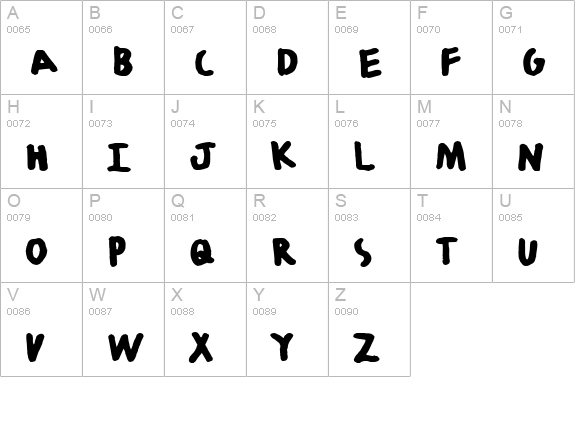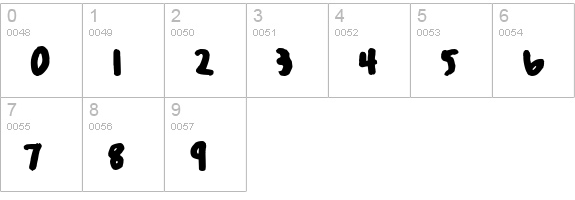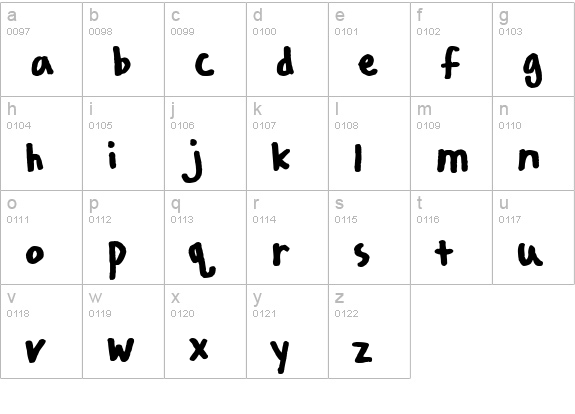
CK Kiddo Font Details
Introducing CK Kiddo font, a whimsical and playful typeface perfect for adding a touch of fun to your creative projects. This charming font features unique, hand-drawn letterforms that exude a sense of childlike innocence and imagination. CK Kiddo is versatile and can be used for a variety of design purposes, from playful branding to eye-catching headlines. The best part? CK Kiddo font is completely free to download at FontsMarket.com, making it easily accessible for designers and creatives looking to add a touch of whimsy to their work. Embrace the playful spirit of CK Kiddo font and let your creativity soar with this delightful typeface.